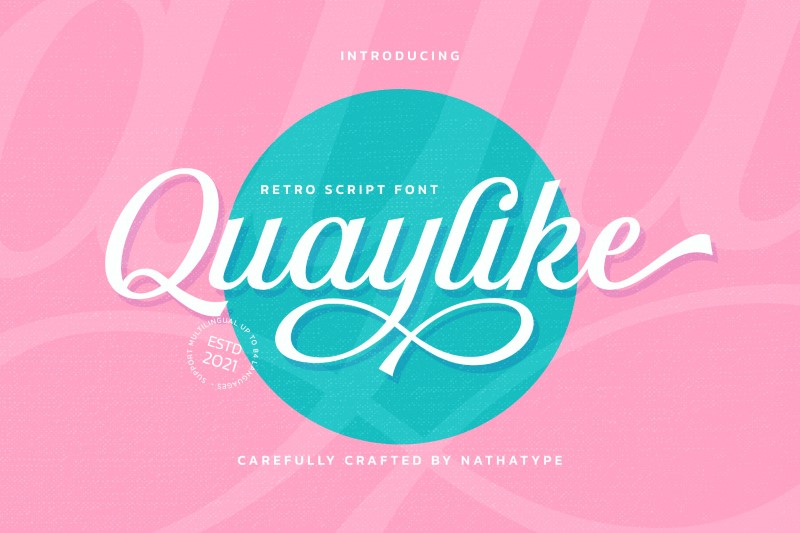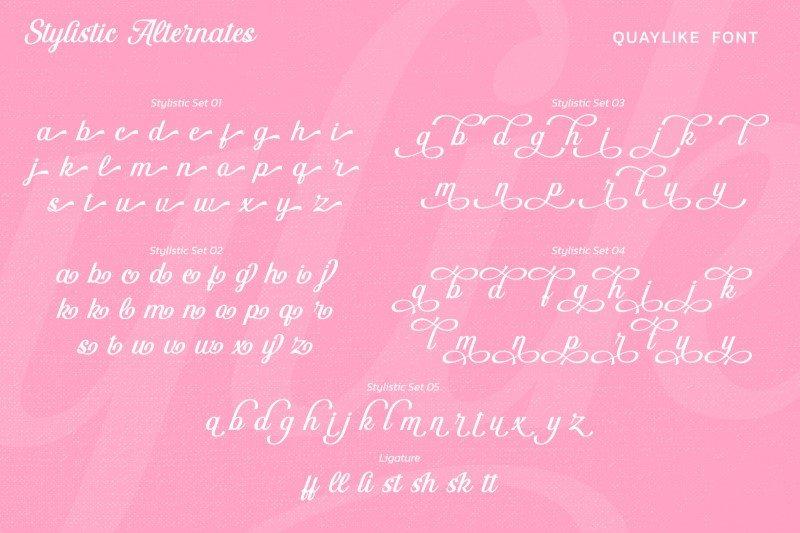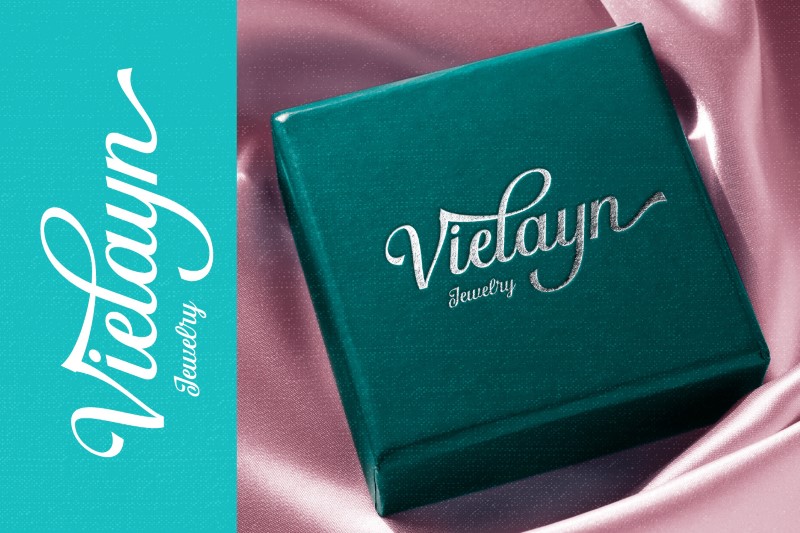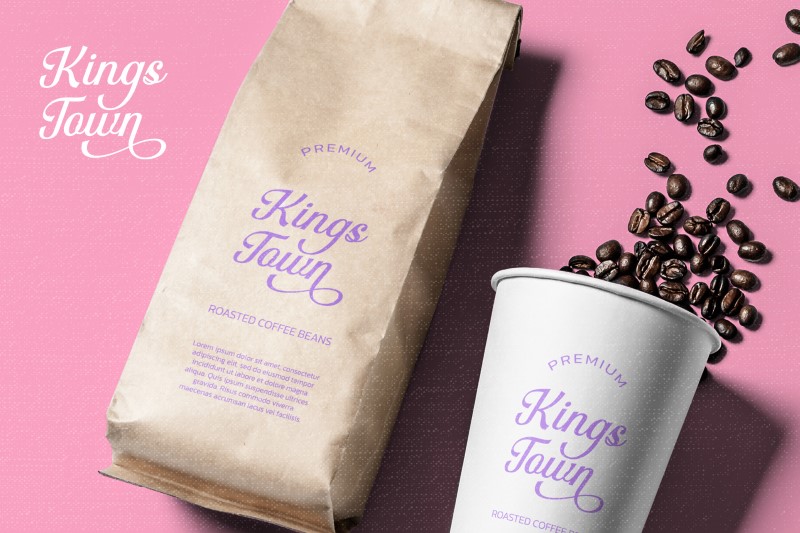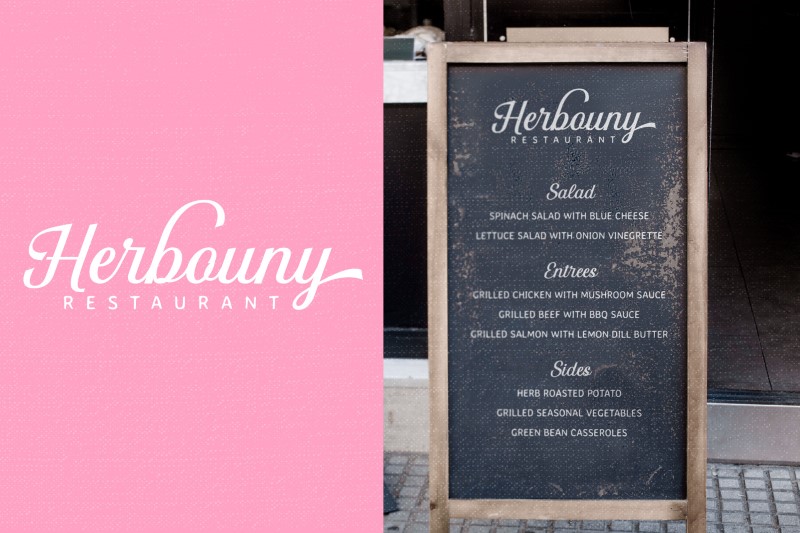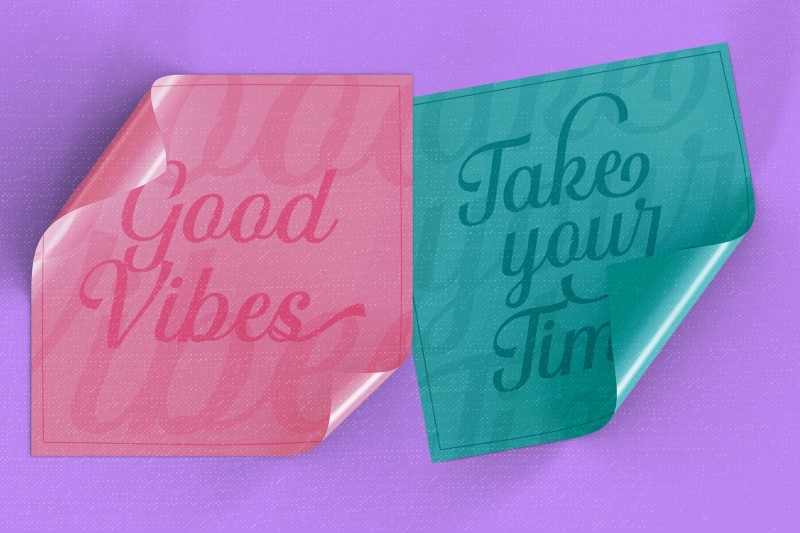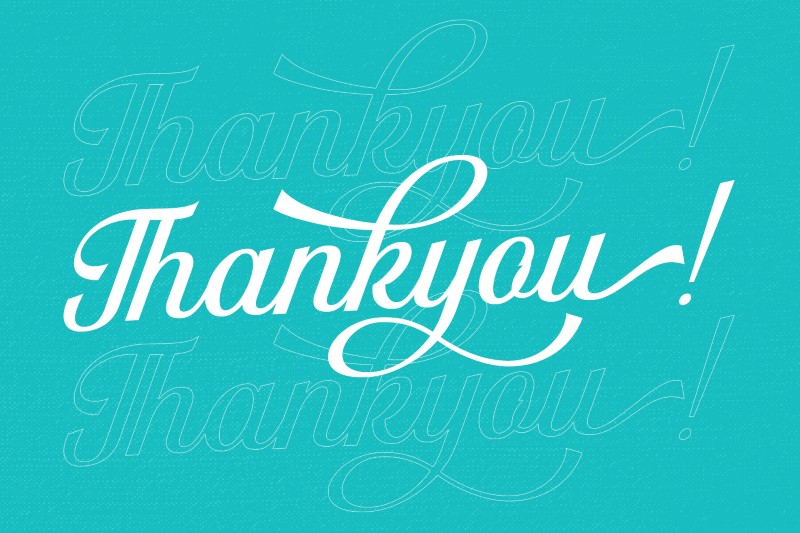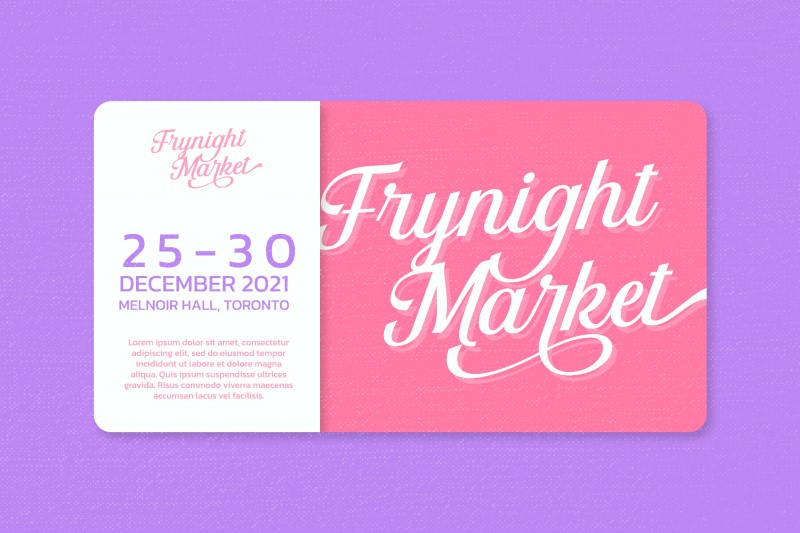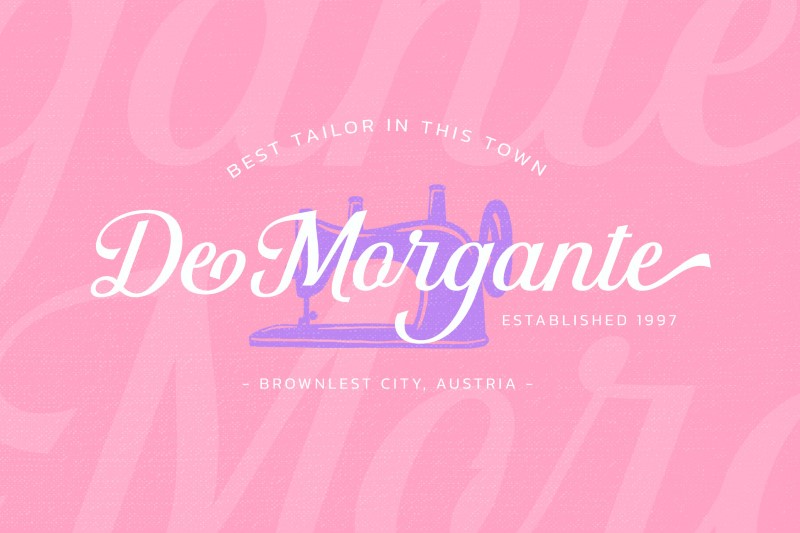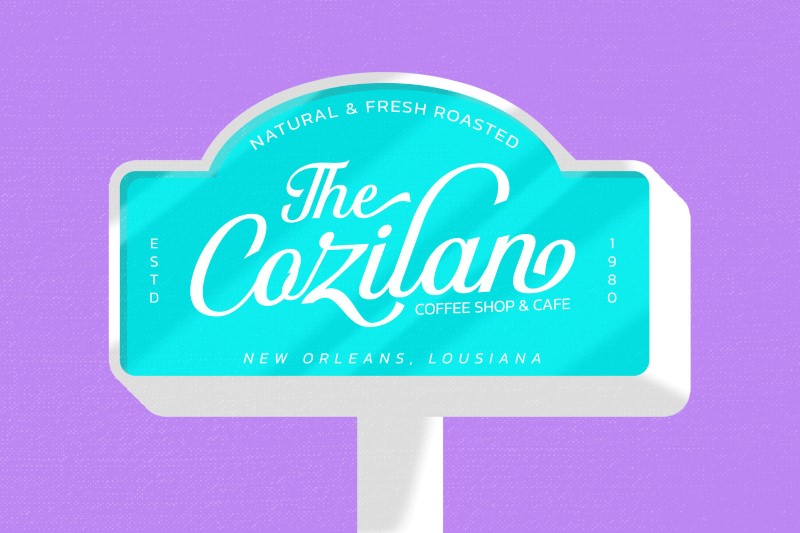
Quaylike is a charming handwritten script font expressing luxury and elegance. The font’s designs are not interconnected and some of the characters or letters are curved on the edges to beautify the displays. Due to its great legibility, you may apply Quaylike for texts in various sizes.
- Stylistic Sets
- Multilingual Supports
Quaylike fits best for various designs, such as posters, banners, logos, book covers, headings, printed products, merchandise, social media, and more. Find out more ways to use this font by taking a look at the font preview.